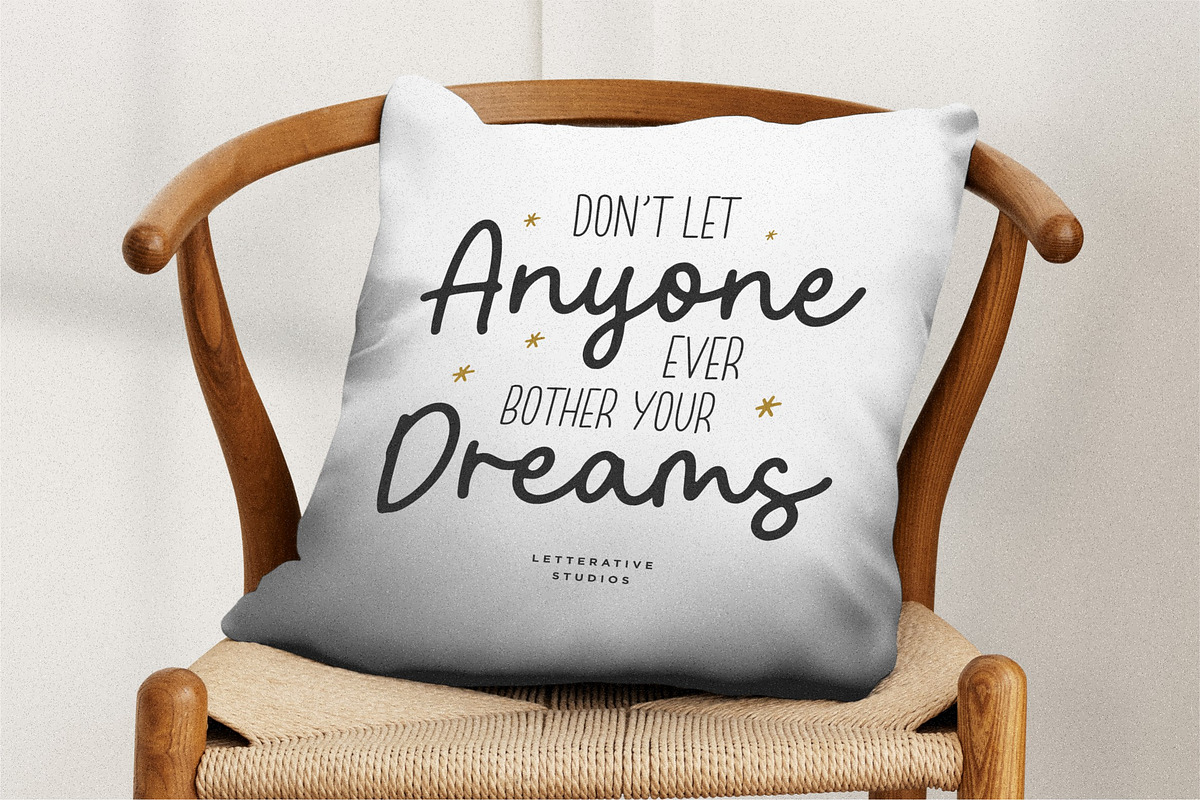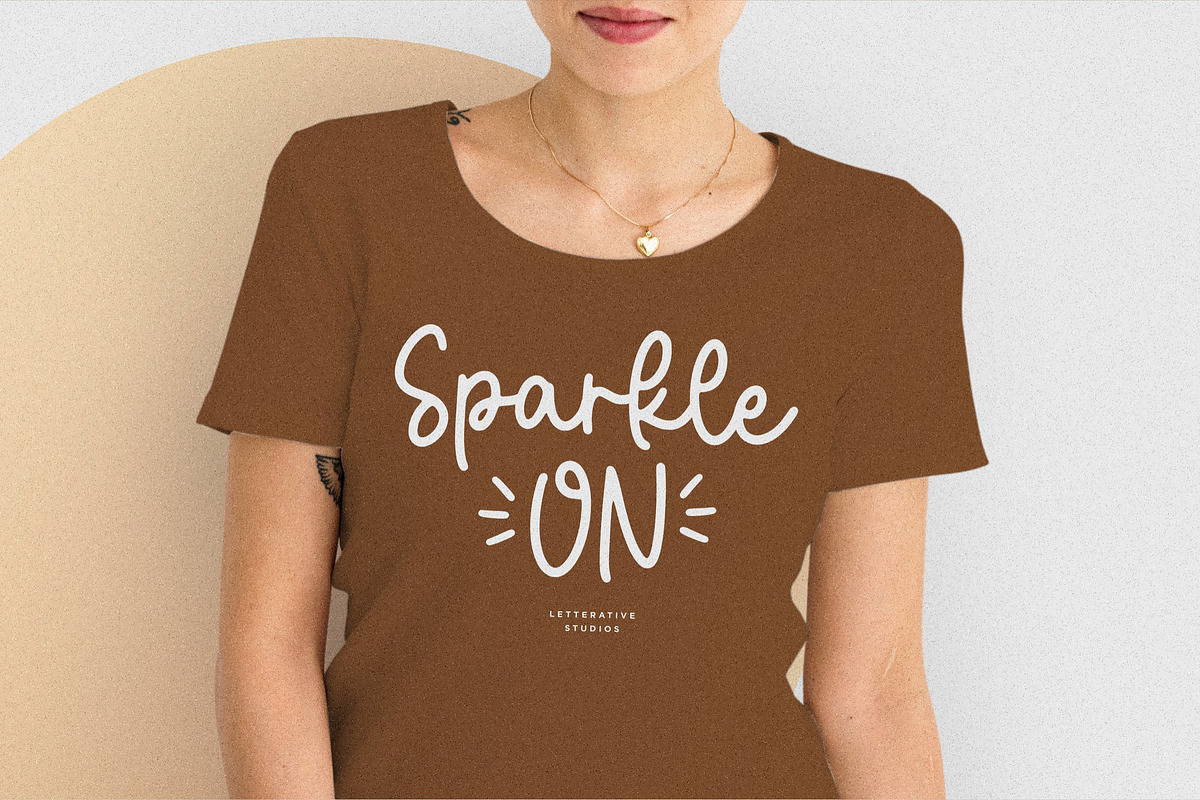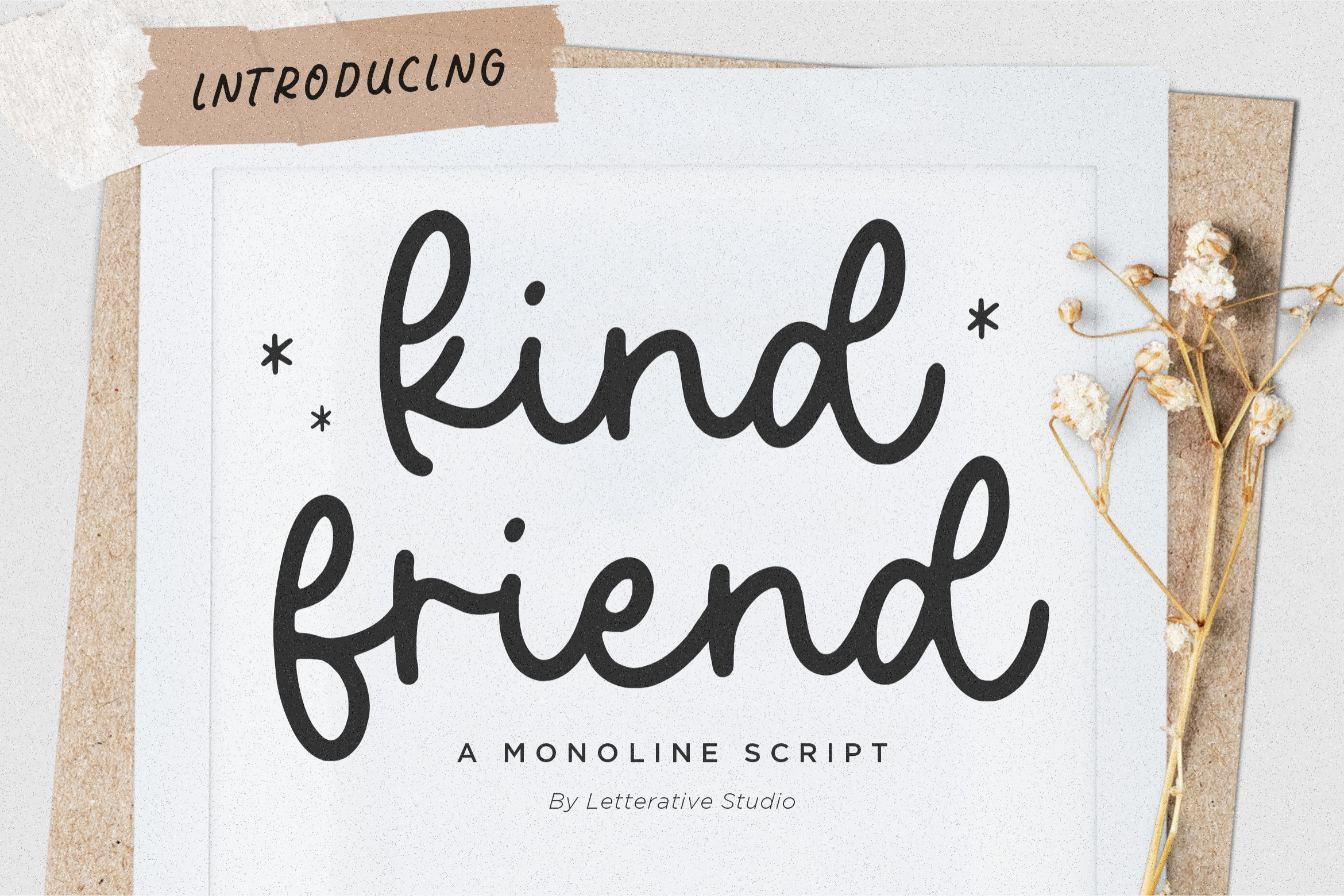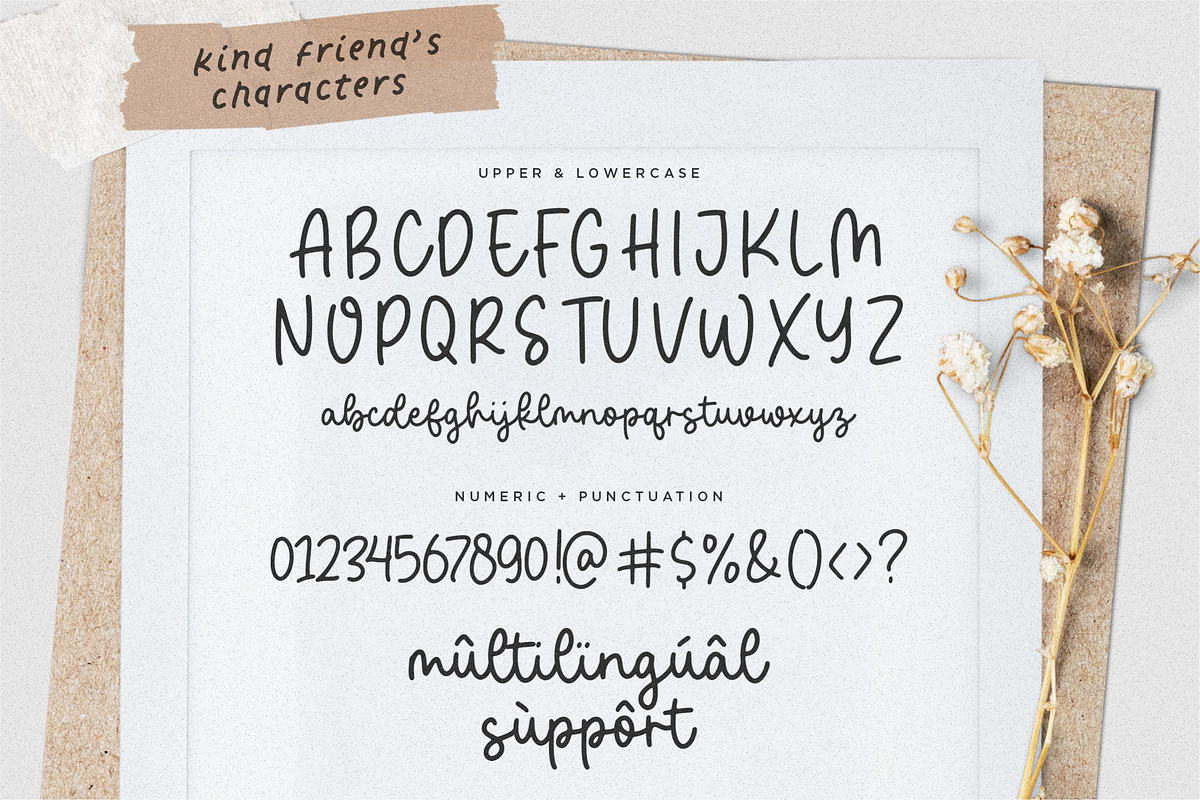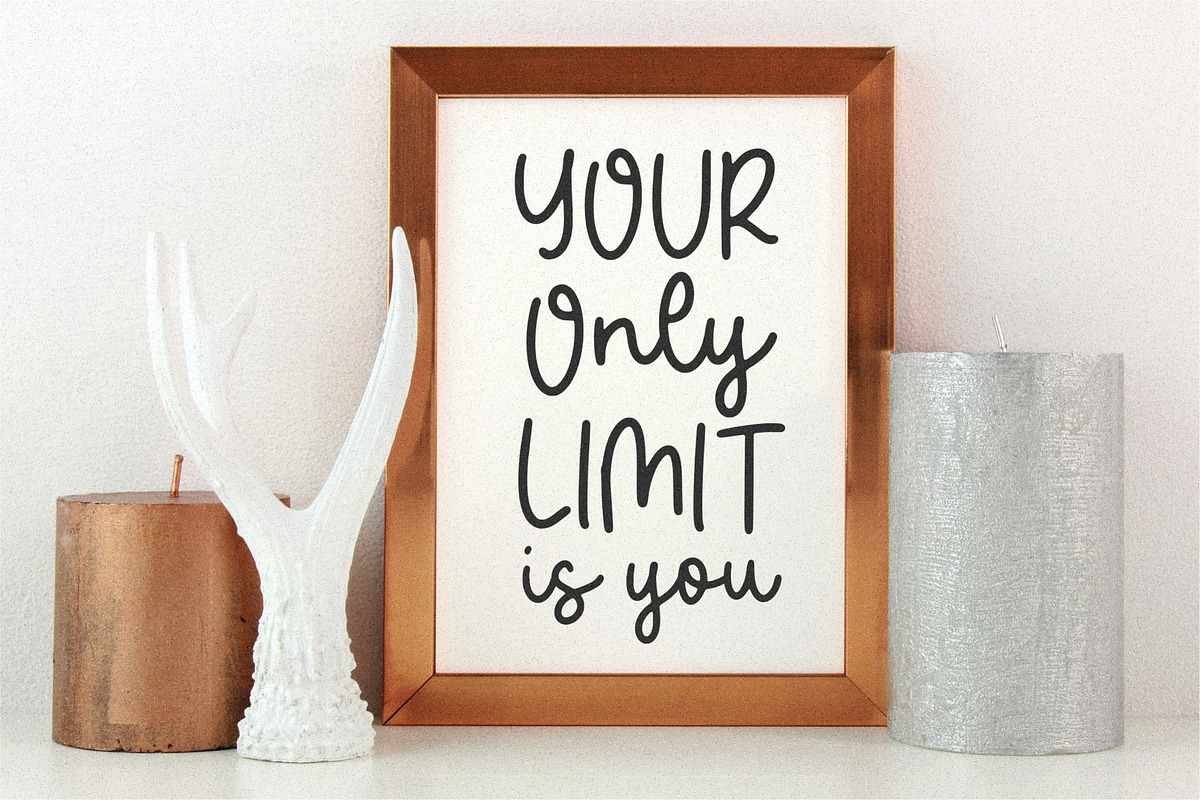
Kind Friend - Monoline Script Font
Introducing by Letterative Studio : Kind Friend Font
Kind Friend is a Monoline Script Font.
Kind Friend is a genuinely original and modern handwritten script font. It has a casual style and it will enhance each of your favorite design ideas. This font includes :
- also multilingual support